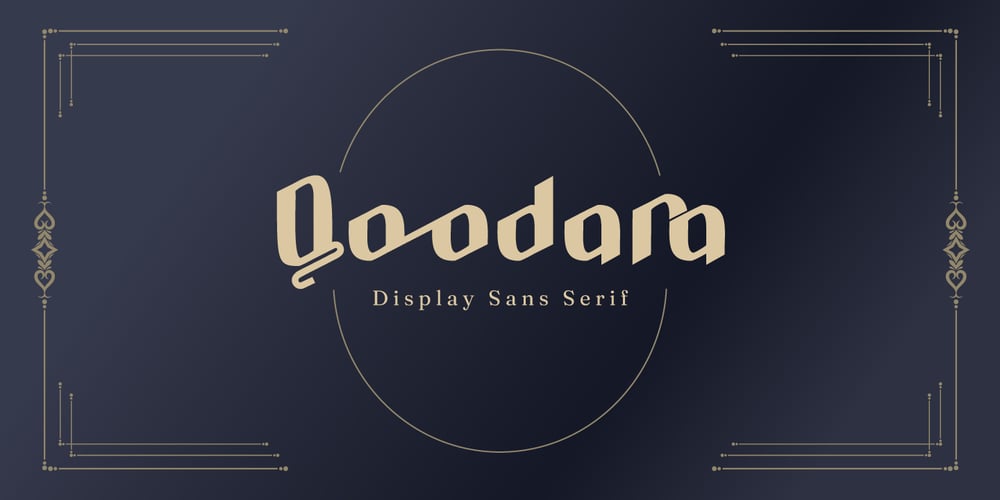
Qoodara
Qoodara font
Qoodara Font Family was designed by Fadli Ramadhan Iskandar and published by Attype Studio. Qoodara contains 1 styles and family package options. Qoodara is a Display sans serif typeface that suitable for strong and modern looks on your works.Qoodara is perfect for sport product, branding, logo, invitation, stationery, product packaging, merchandise, monogram, blog design, game titles, cute style design, Book/Cover Title and more.Features :- Qoodara Font- Ligatures- Multilingual, US Roman, Latin 1 Support —Hope you enjoy with our font!Attype Studio